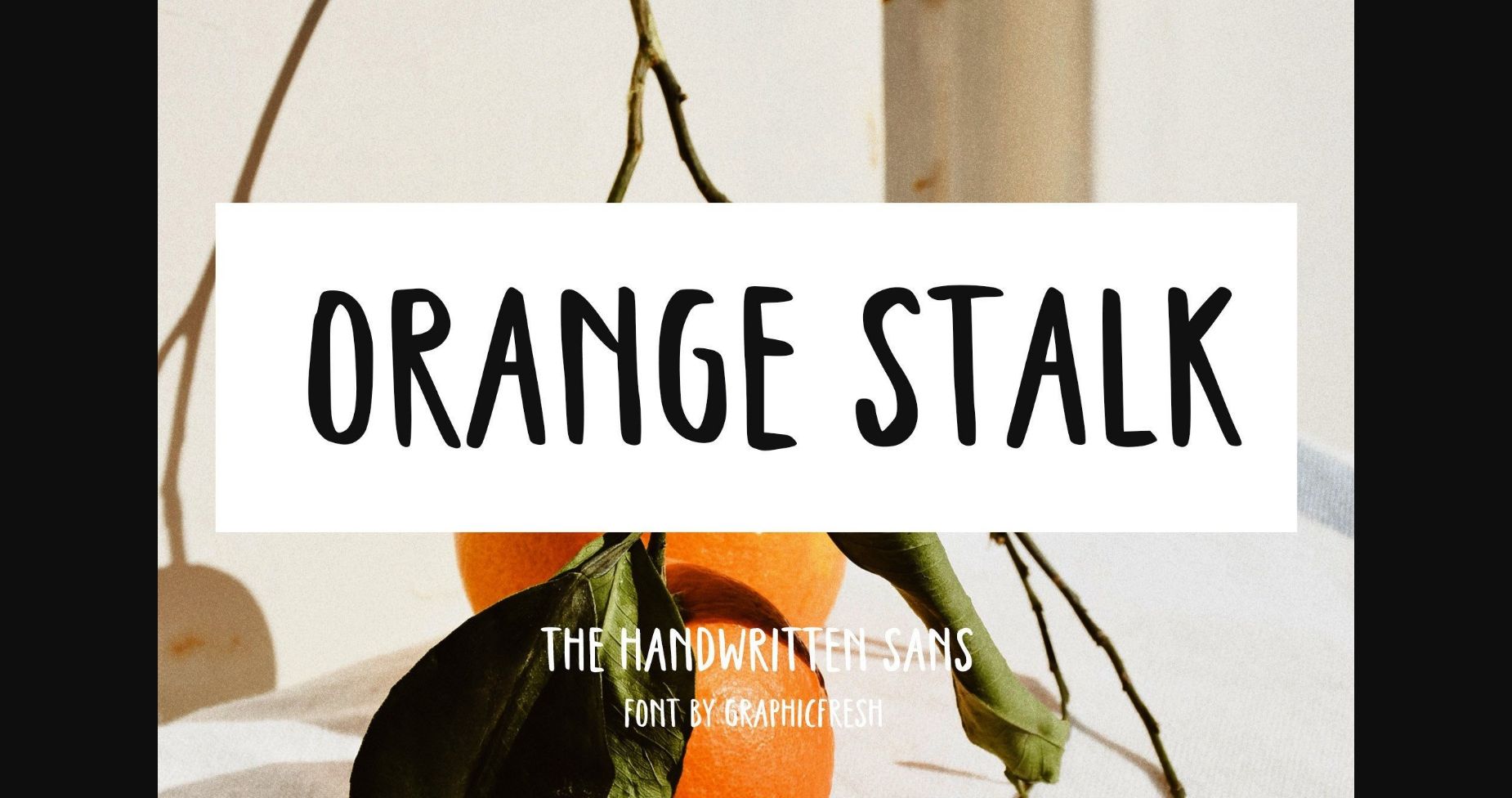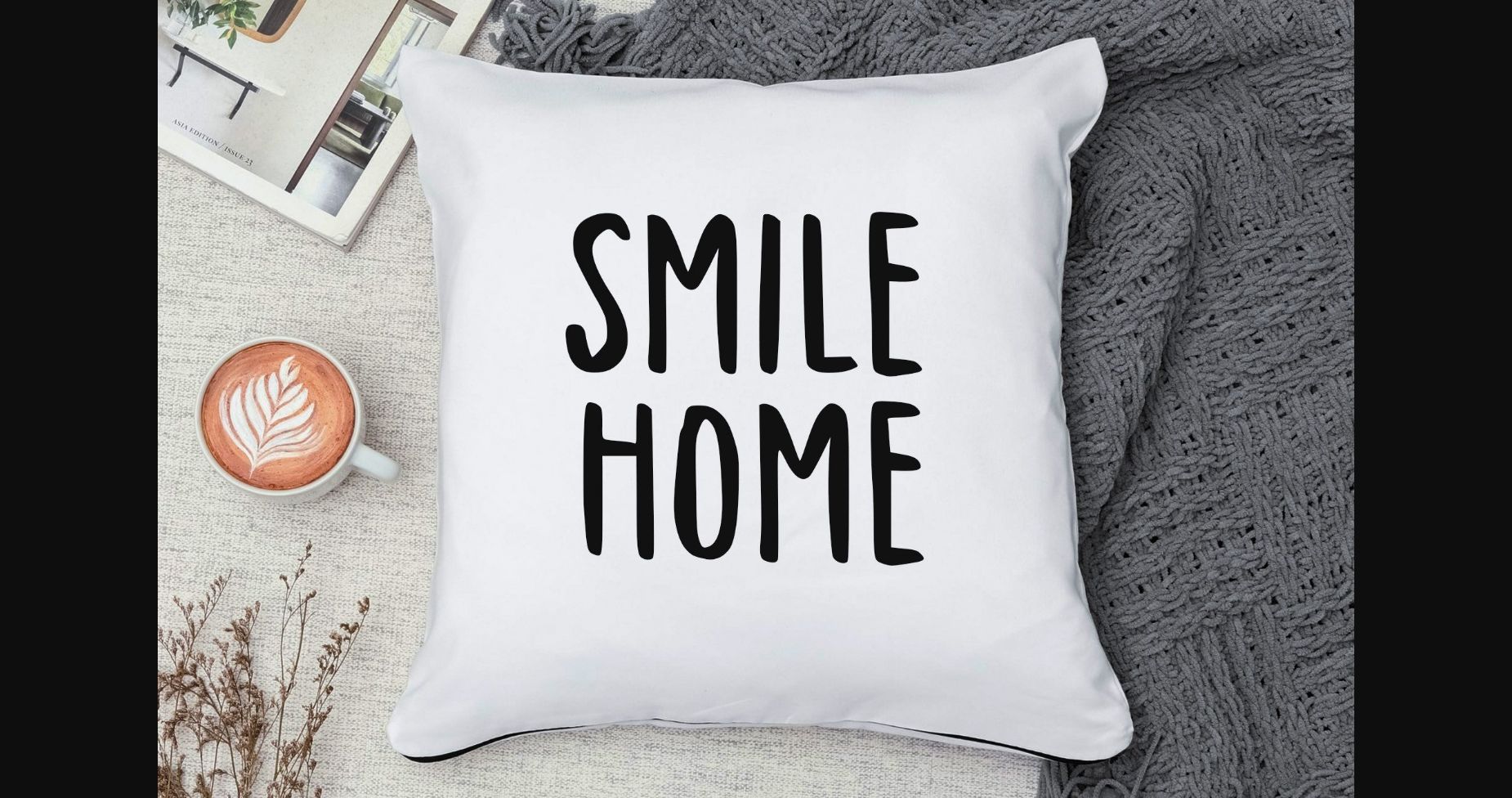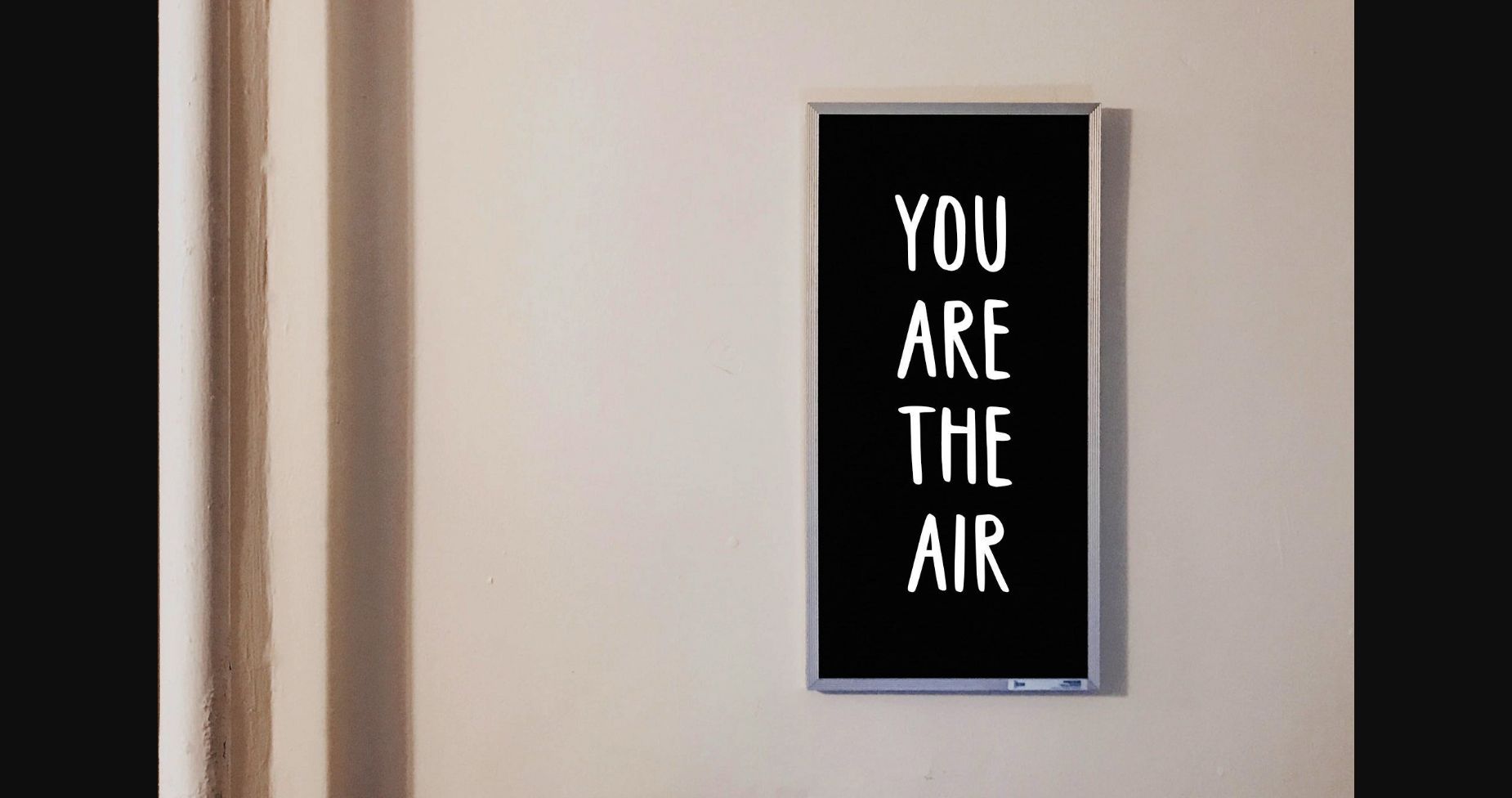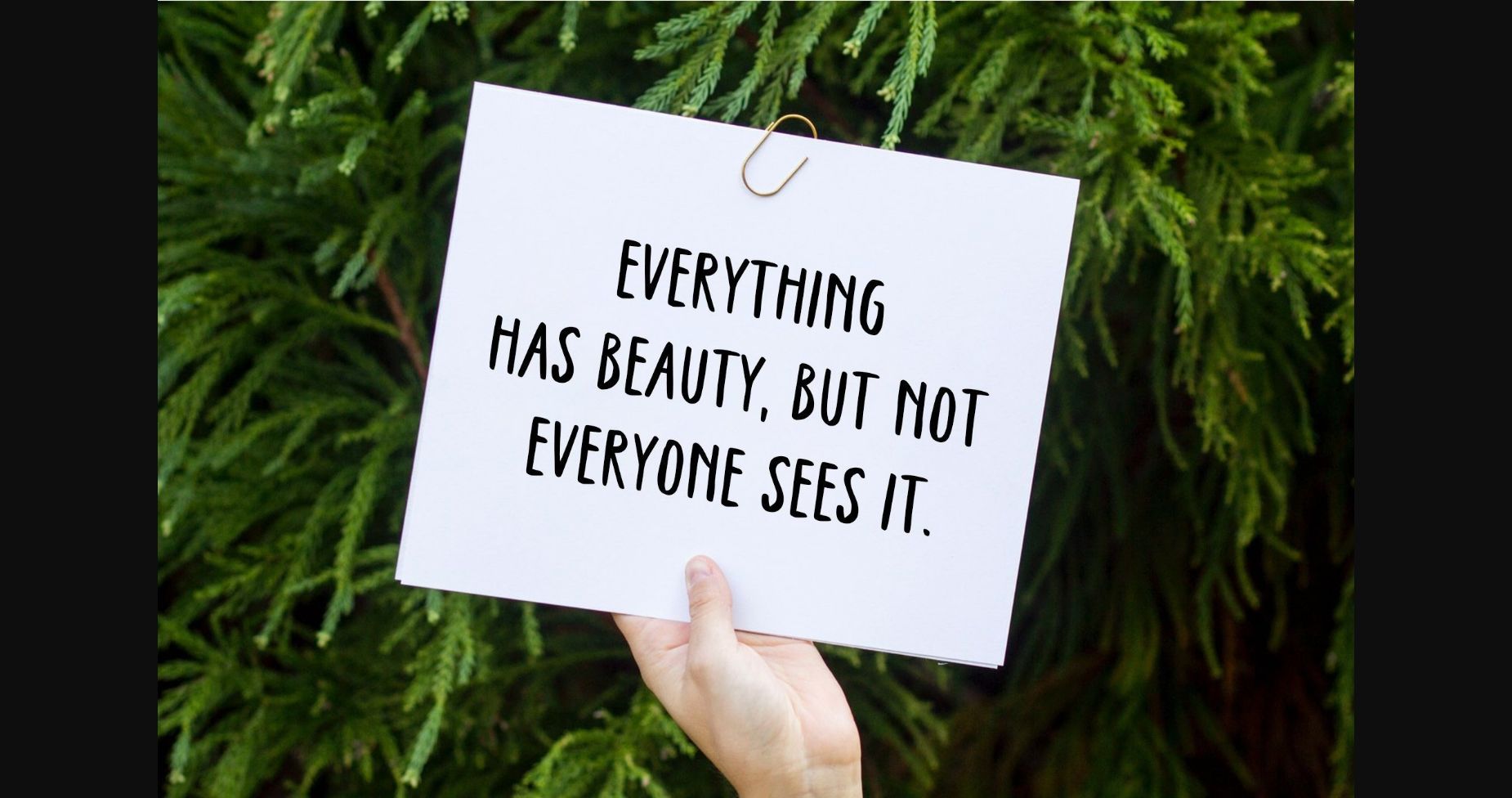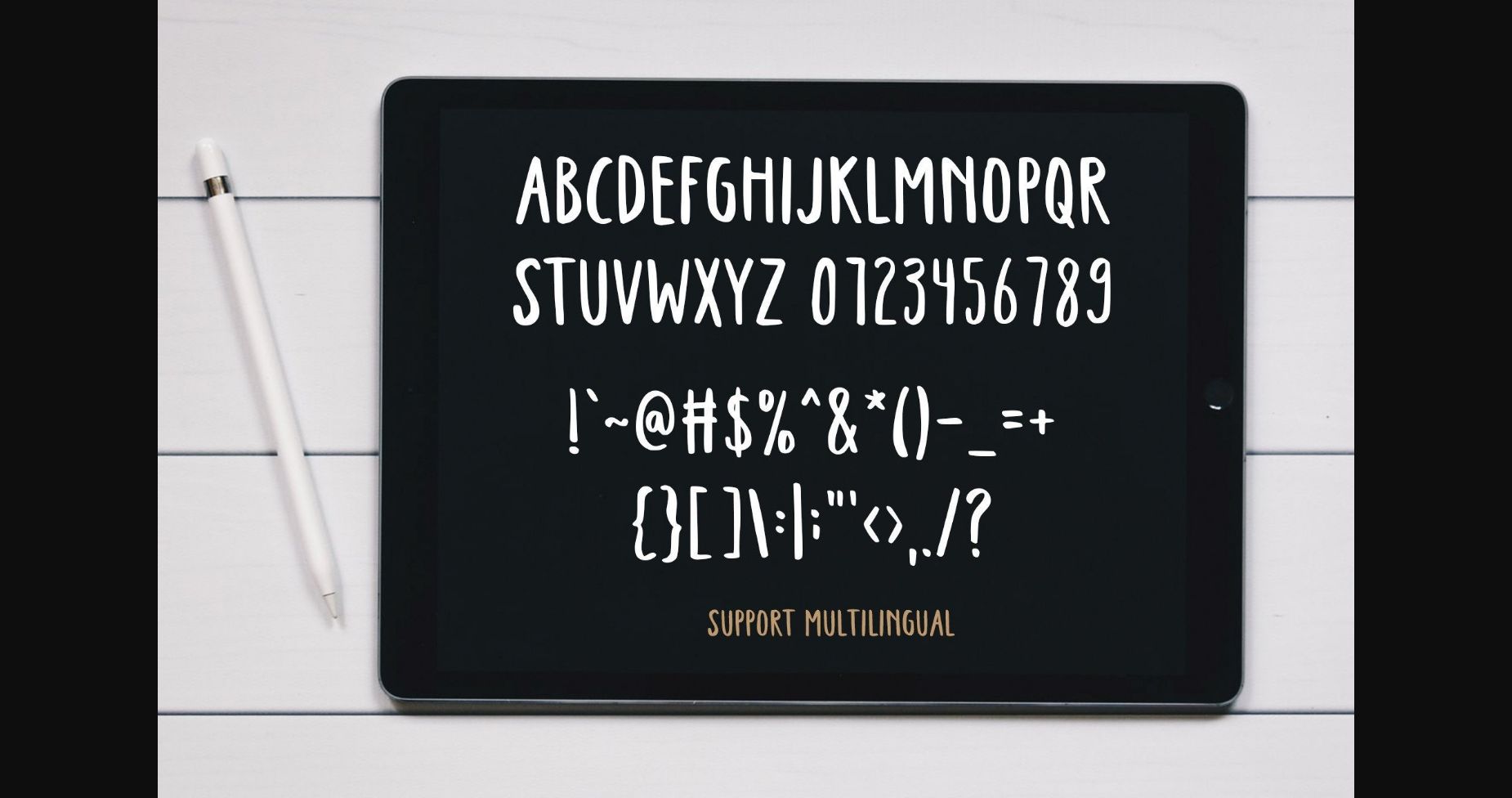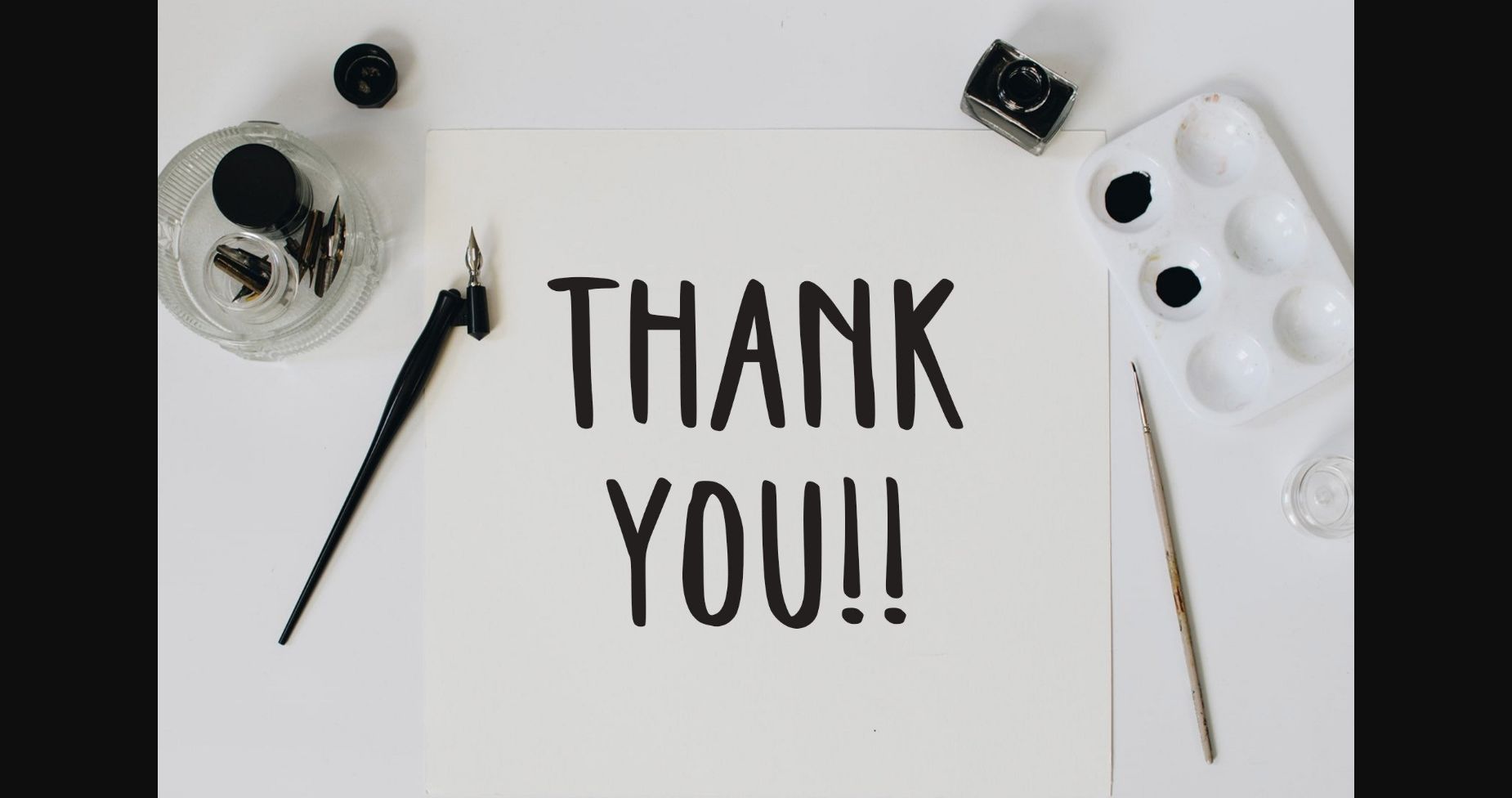
About Orange Stalk Font
Orange Stalk is a tall and thin lettered handwritten font, that can be used for all chalkboard quotes or teaching material! Its authentic look will add a personal and realistic feel to your designs.